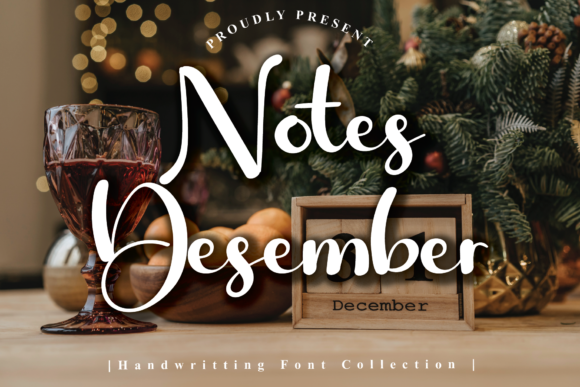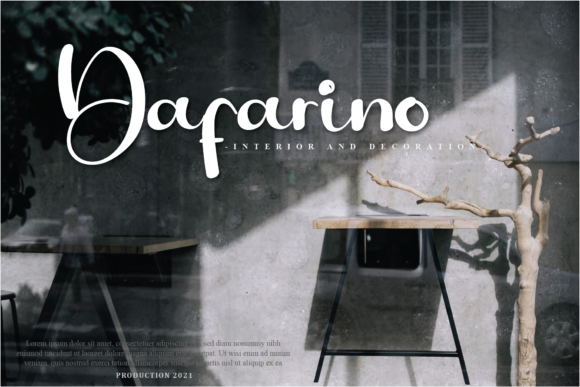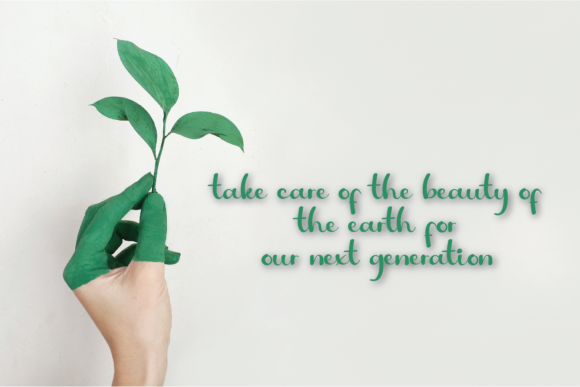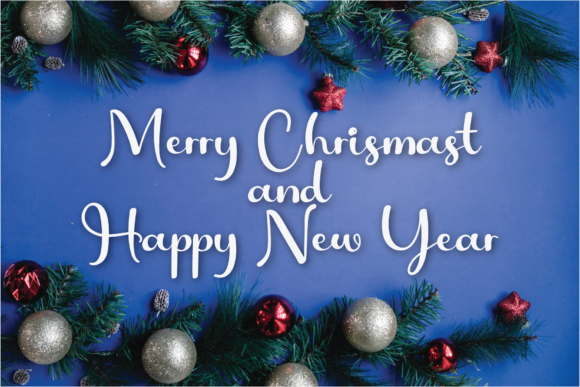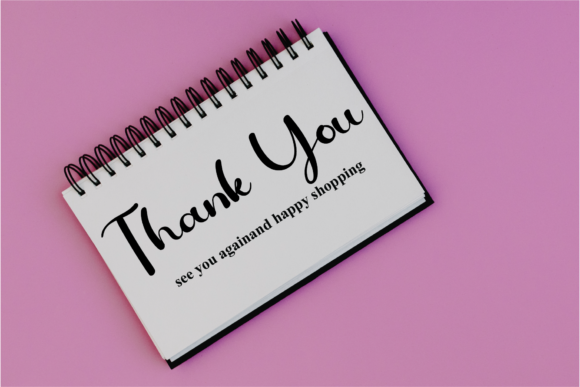
Notes December Font
About Notes December Font
Notes December is a flowing and graceful script font. Fall for its ravishing style and use it to create gorgeous wedding invitations, beautiful stationary art, eye-catching social media posts, and much more!